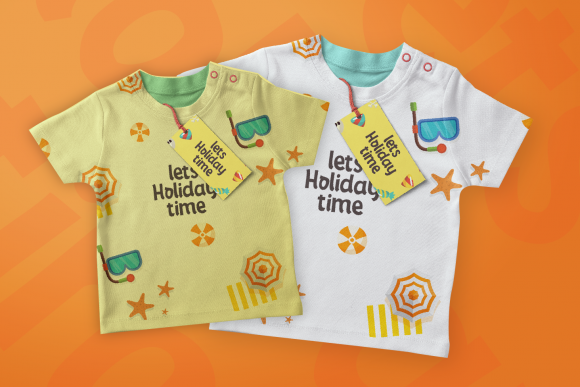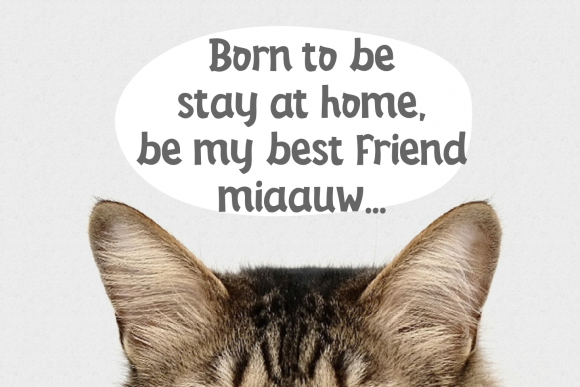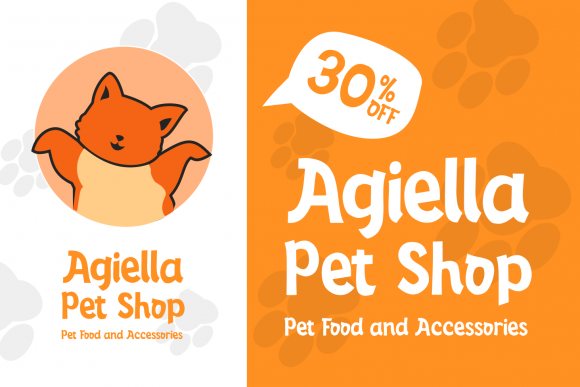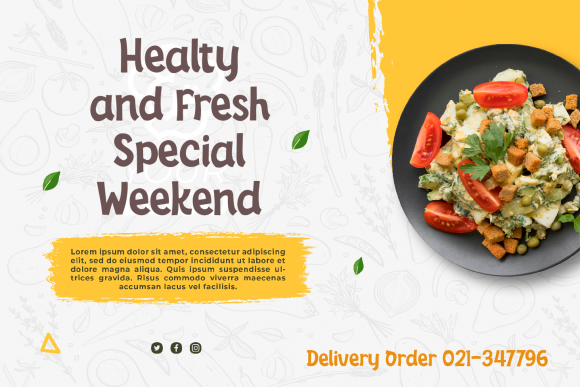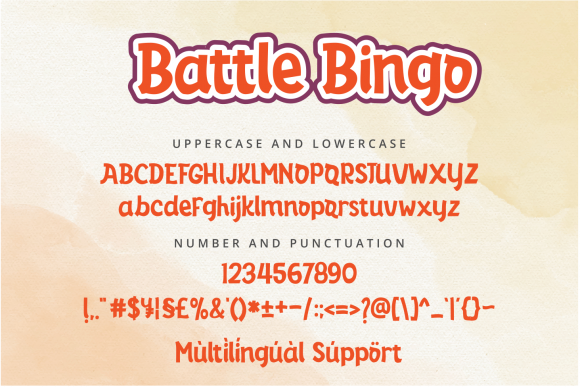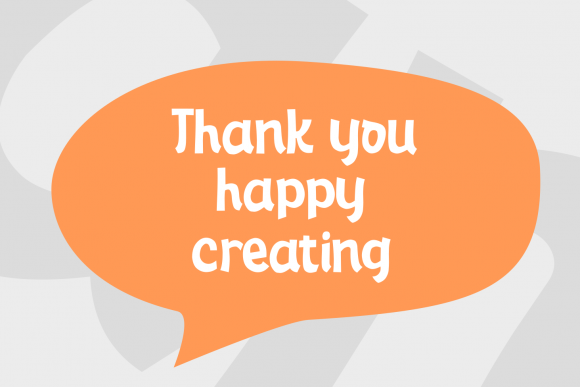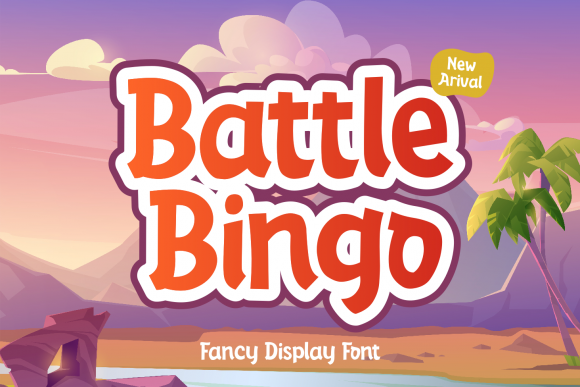
Introducing Battle Bingo Font: The Perfect Choice for Designers and Crafters
Are you a designer, crafter, or digital artist looking for a font that exudes friendliness and playfulness? Look no further than the Battle Bingo Font! This childish, readable display font is perfect for a variety of creative projects, from crafting and digital designing to presentations and greeting cards making.
What Makes Battle Bingo Font So Special?
Battle Bingo Font is designed to bring a touch of whimsy and fun to your designs. Its unique blend of playfulness and readability makes it an excellent choice for projects that require a friendly and approachable tone. The font features:
- Childish charm: Battle Bingo Font has a youthful and energetic vibe that’s perfect for designs aimed at a younger audience or for creating fun and playful content.
- Readability: Despite its playful nature, the font remains highly readable, making it suitable for use in a variety of contexts, from digital screens to print materials.
- Friendliness: The font’s friendly demeanor makes it perfect for creating welcoming and approachable designs that put your audience at ease.
Perfect for Various Creative Projects
Battle Bingo Font is an incredibly versatile font that can be used in a wide range of creative projects, including:
- Crafting: Add a playful touch to your handmade crafts, such as DIY cards, gift tags, and scrapbooking projects.
- Digital designing: Use Battle Bingo Font in your digital designs, such as social media graphics, blog posts, and website headers.
- Presentations: Add a friendly and approachable tone to your presentations, making them more engaging and enjoyable for your audience.
- Greeting cards making: Create fun and playful greeting cards for special occasions, such as birthdays, holidays, and get-well wishes.
Why Choose Battle Bingo Font?
With so many fonts available, why choose Battle Bingo Font? Here are just a few reasons:
- Unique style: Battle Bingo Font has a distinctive style that sets it apart from other fonts, making it perfect for designers and crafters looking to add a touch of personality to their work.
- Ease of use: The font is easy to read and works well in a variety of contexts, making it a convenient choice for designers and crafters.
- Fun and playful: Battle Bingo Font is the perfect choice for designers and crafters who want to add a touch of fun and playfulness to their work.
How to Use Battle Bingo Font
Using Battle Bingo Font is easy! Here are a few tips to get you started:
- Pair it with other fonts: Battle Bingo Font works well when paired with other fonts, such as serif or script fonts, to create visually interesting combinations.
- Experiment with colors: The font looks great in a variety of colors, so don’t be afraid to experiment and find the perfect hue for your design.
- Use it in different contexts: Battle Bingo Font can be used in a variety of contexts, from digital screens to print materials, so feel free to experiment and find the perfect use for your design.
Battle Bingo Font is a unique and versatile font that’s perfect for designers and crafters looking to add a touch of friendliness and playfulness to their work. With its childish charm, readability, and friendly demeanor, it’s an excellent choice for a variety of creative projects. So why not give it a try and see how Battle Bingo Font can elevate your designs?